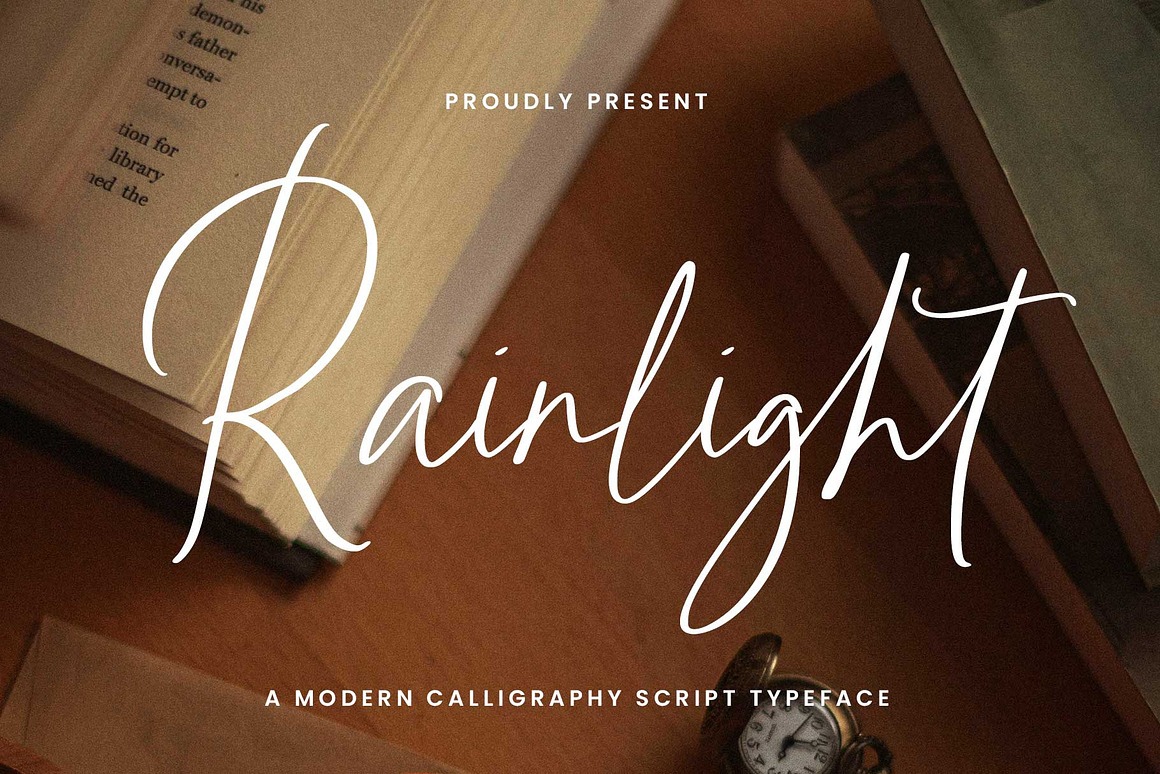
Rainylight Font
About Rainylight
Rainlight is a beautiful handwritten script, joyfully crafted with clean strokes and bouncy letterforms that resemble natural handwriting. This charming font brings a soft, heartfelt touch to your designs — chic, romantic, and deeply personal.